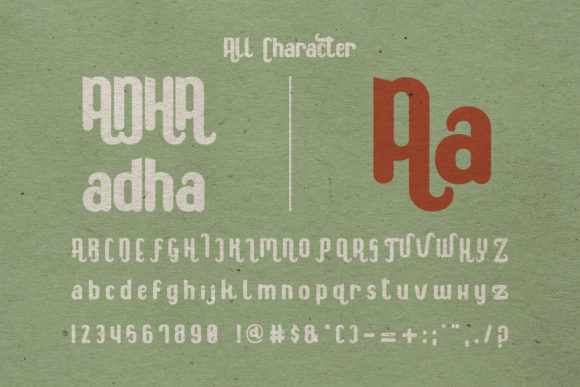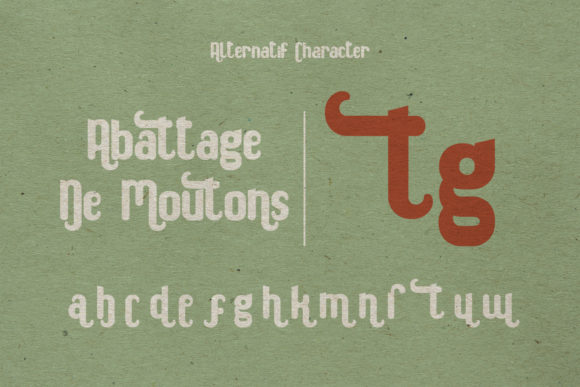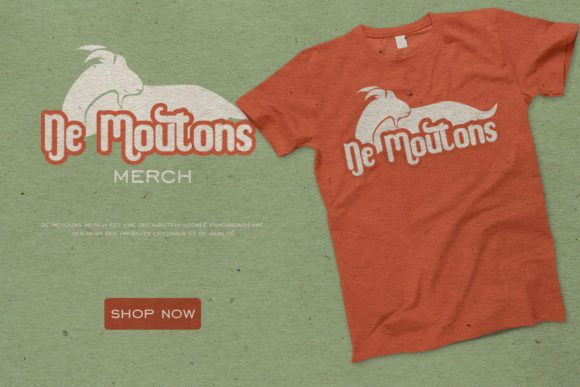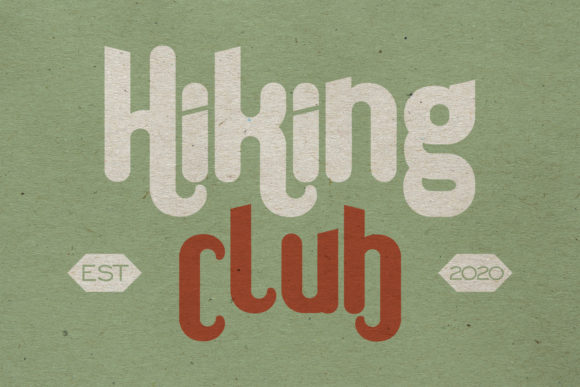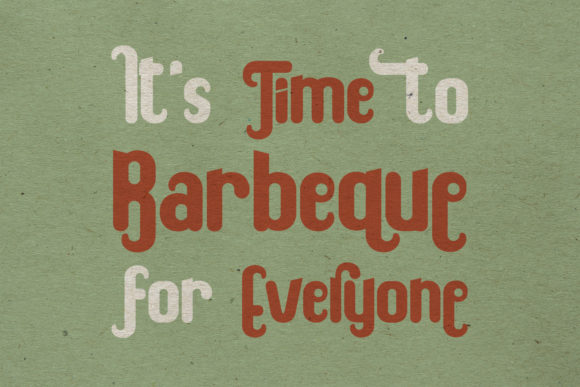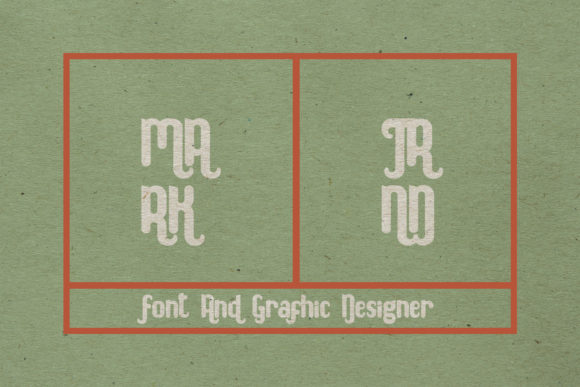
Introduction to Bonjour Adha Font
Have you ever found yourself staring at a blank canvas, trying to bring your creative vision to life? It’s that moment when the perfect design element can make all the difference. For designers, discovering a font that captures the essence of their project can be a game-changer. In this article, we’ll be exploring the Bonjour Adha Font, a modern sans serif font that’s sure to elevate your creative project to the next level.
Bonjour Adha Font is a unique blend of cute alternates and vintage design, making it an invaluable resource for designers. Its versatility allows it to seamlessly integrate into a wide range of design projects, from branding and headings to wedding designs and invitations. Whether you’re working on a high-end logo or a simple signature, this font is sure to make a statement.
Key Features of Bonjour Adha Font
- High-quality design resource for creative projects, offering a unique and stylish touch.
- Unique characteristics include a mix of modern and elegant styles, making it perfect for branding and typography projects.
Honest Review: Bonjour Adha Font
- ✨ The font’s elegant, modern design makes it perfect for creative projects that require a touch of sophistication.
- ✨ The high-quality design ensures that the font looks great on both light and dark backgrounds, including transparent backgrounds.
- ✨ The font’s versatility allows it to be used in a variety of contexts, from branding and marketing materials to digital products and websites.
- ⚠️ The font’s font size may become distorted when used in very large or very small sizes.
- ⚠️ The font’s bold weight may not be as distinct from the regular weight as some designers may prefer.
Overall, I’m quite impressed with the Bonjour Adha Font. Its unique design and high-quality rendering make it a valuable addition to any design resource library. While it’s not without its limitations, I would definitely recommend it to designers looking for a stylish and modern font for their creative project.
Bonjour Adha Font
To get the most out of the Bonjour Adha Font, experiment with different font sizes and styles to create a unique visual effect. You can also use the font in combination with other design elements, such as graphics and images, to create a cohesive and visually appealing design.
The Bonjour Adha Font is ideal for use in creative projects, such as graphic design, digital art, and typography. It’s also a great resource for designers who need a high-quality font with a transparent background for use in their designs.